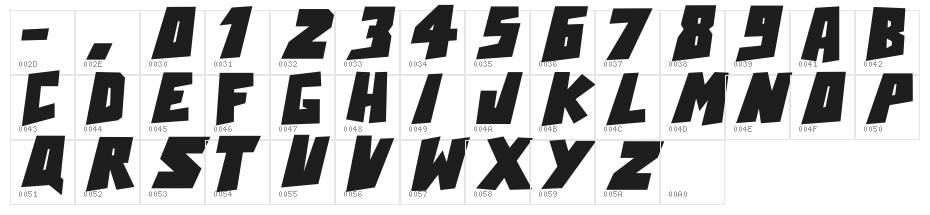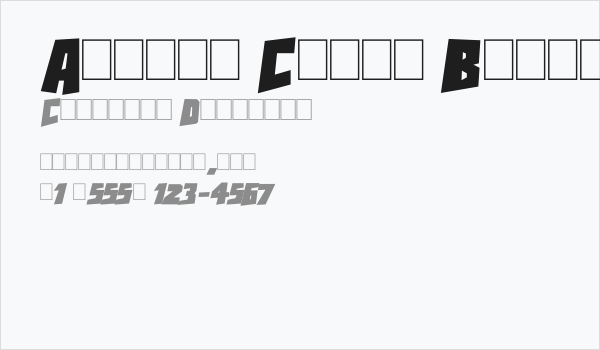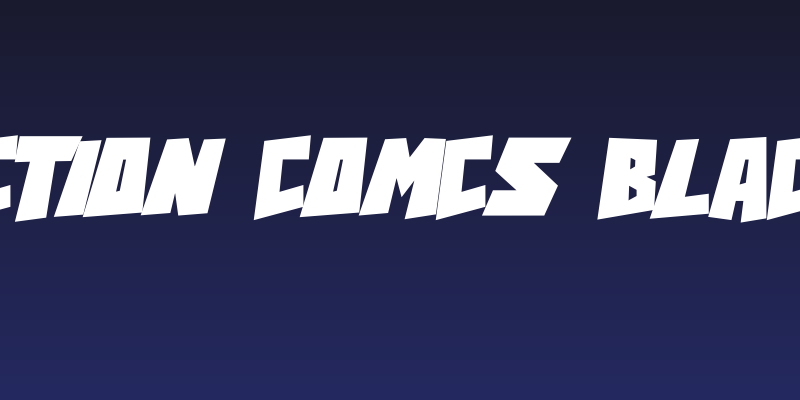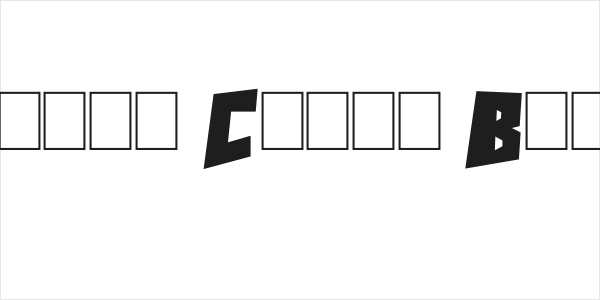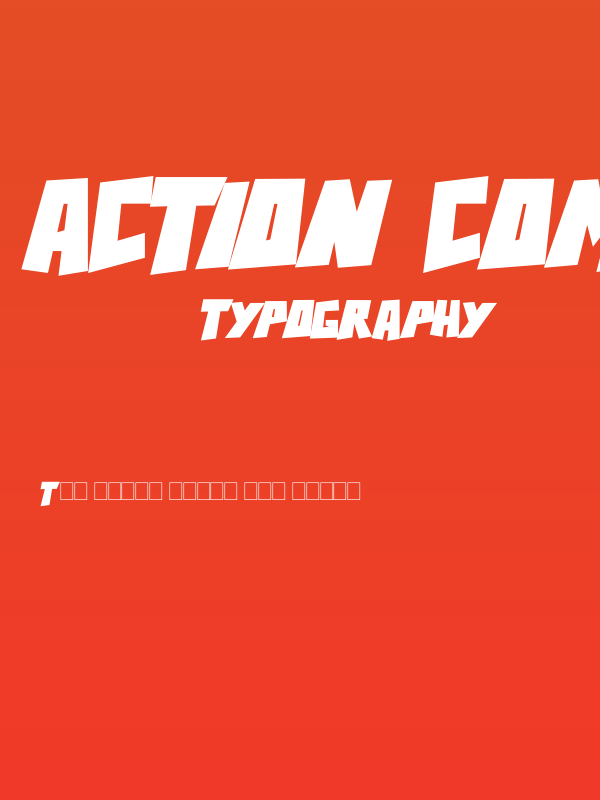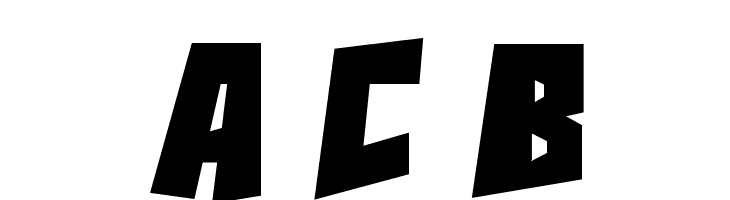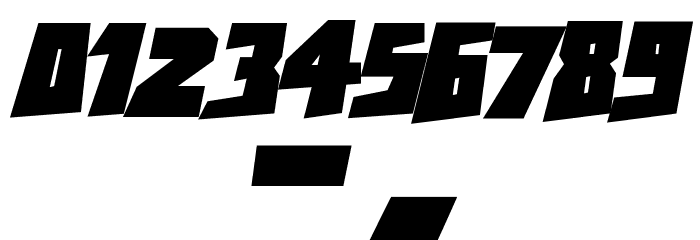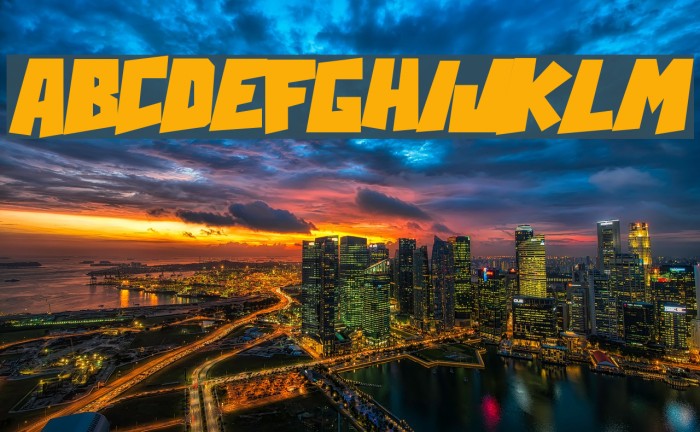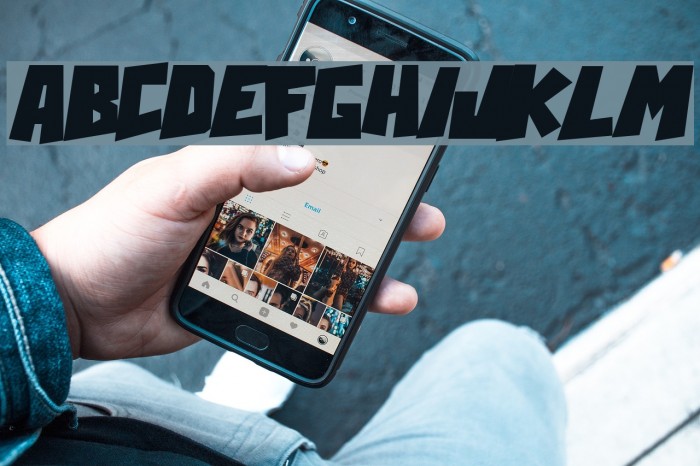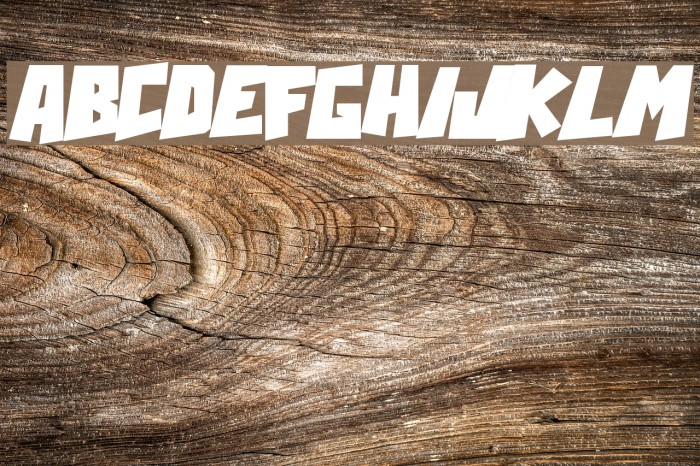
Action Comcs Black Font
Action Comcs Black Description
This font features bold, angular characters with a dynamic and energetic style, reminiscent of comic book lettering. The uppercase letters are particularly striking, with sharp edges and a sense of movement that suggests action and excitement. The numbers and special characters maintain this bold aesthetic, making the font suitable for attention-grabbing designs. The overall appearance is both modern and playful, ideal for projects that require a strong visual impact.
| Overall Style | Modern, Energetic |
| Proposed Projects | Ideal for comic book covers, action-themed posters, video game titles, and any design needing a bold, energetic look. |